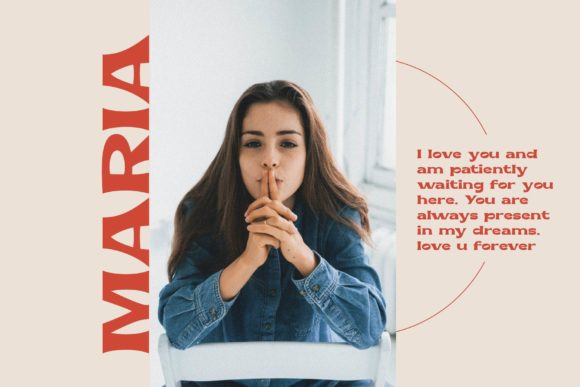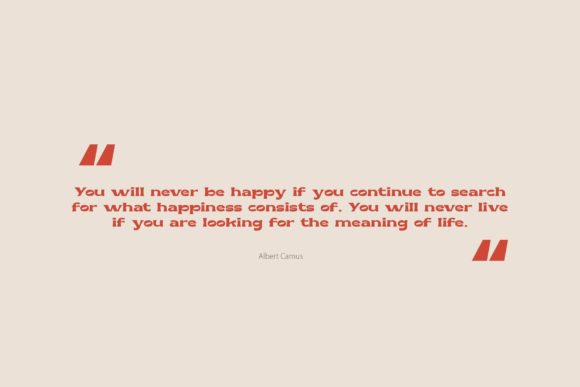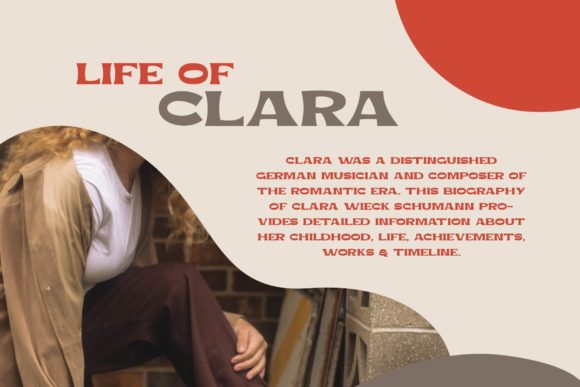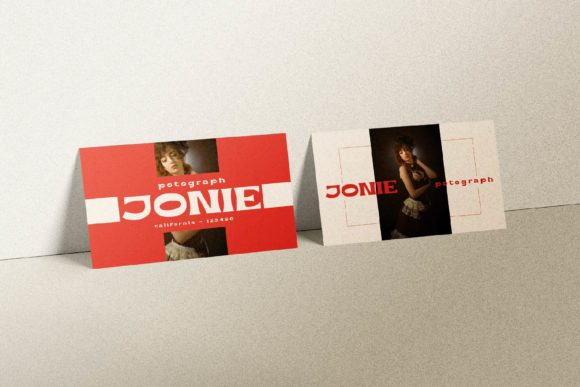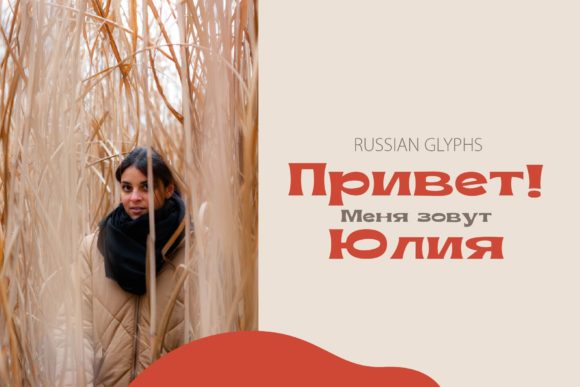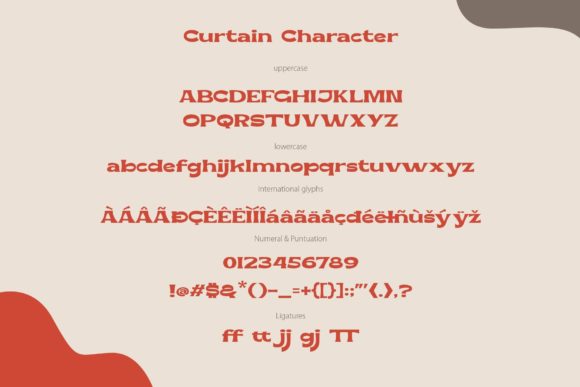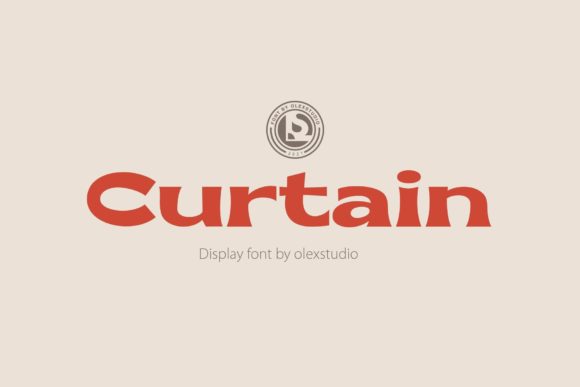
Curtain Font: Elevate Your Designs with a Cool, Assertive, and Modern Display Font
In the world of design, typography plays a crucial role in conveying messages, expressing creativity, and capturing attention. When it comes to making a statement, a bold and modern font can make all the difference. Introducing Curtain Font, a cool, assertive, and modern looking display font that’s perfect for designers and crafters looking to add a strong touch to their projects.
What is Curtain Font?
Curtain Font is a display font designed to make a bold statement. Its sleek and modern design makes it perfect for a wide range of applications, from posters and apparel designs to labels and more. With its unique character and assertive personality, Curtain Font is sure to grab attention and leave a lasting impression.
Key Features of Curtain Font
- Cool and Modern Design: Curtain Font boasts a sleek and contemporary design that’s perfect for designers and crafters who want to add a touch of sophistication to their projects.
- Assertive and Bold: With its strong and assertive personality, Curtain Font is ideal for making a statement and grabbing attention.
- Versatile: Curtain Font can be used in a wide range of applications, from posters and apparel designs to labels and more.
- Easy to Read: Despite its bold design, Curtain Font is easy to read, making it perfect for headlines, titles, and short phrases.
Use Cases for Curtain Font
Curtain Font is perfect for a variety of design projects, including:
- Posters: Add a bold and modern touch to your posters with Curtain Font. Perfect for advertising, promoting events, or making a statement.
- Apparel Designs: Take your apparel designs to the next level with Curtain Font. Ideal for t-shirts, hoodies, and more.
- Labels: Add a strong and assertive touch to your labels with Curtain Font. Perfect for product labels, stickers, and more.
- Social Media Graphics: Make a statement on social media with Curtain Font. Perfect for creating eye-catching graphics and posts.
Tips for Using Curtain Font
Here are some tips for getting the most out of Curtain Font:
- Use it Sparingly: Curtain Font is bold and assertive, so use it sparingly to make a maximum impact.
- Pair it with Other Fonts: Experiment with pairing Curtain Font with other fonts to create a unique and visually appealing design.
- Adjust the Size and Color: Play around with different sizes and colors to find the perfect combination for your design.
| Font Name | Curtain Font |
| Author | Olexstudio |
Curtain Font is a cool, assertive, and modern looking display font that’s perfect for designers and crafters looking to add a strong touch to their projects. With its unique character, versatile design, and ease of use, Curtain Font is sure to become a go-to font in your design arsenal. So why wait? Download Curtain Font today and start elevating your designs to the next level!
Whether you’re a seasoned designer or a crafty DIY enthusiast, Curtain Font is the perfect addition to your design toolkit. So go ahead, get creative, and make a statement with Curtain Font!